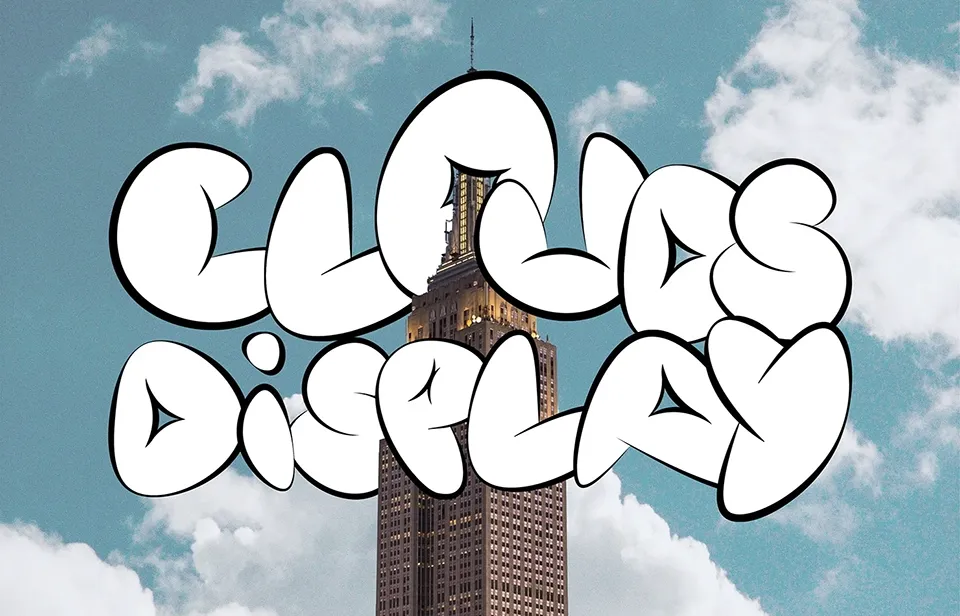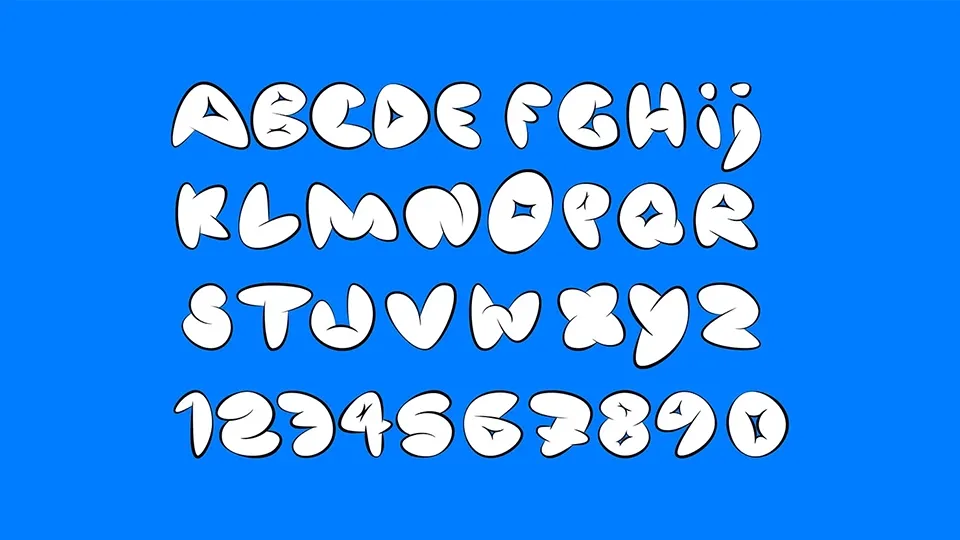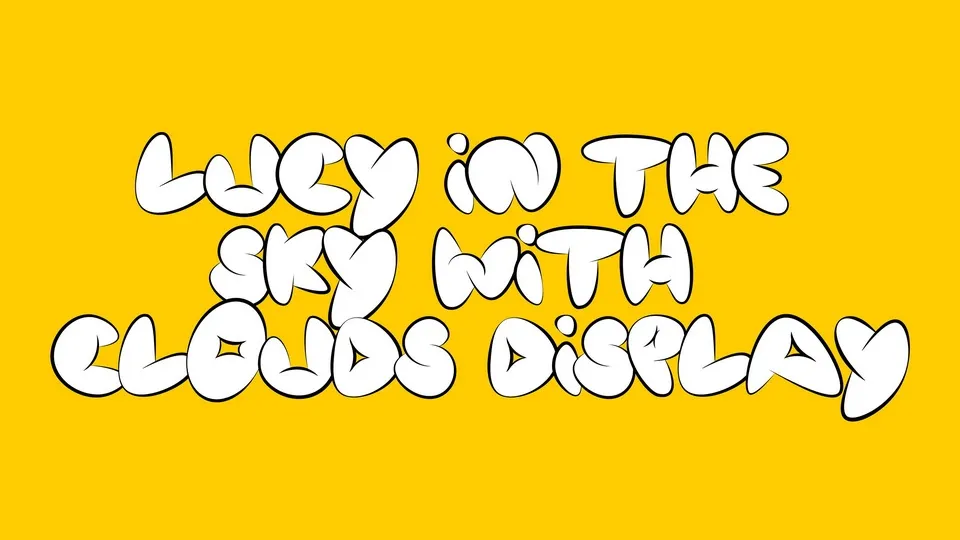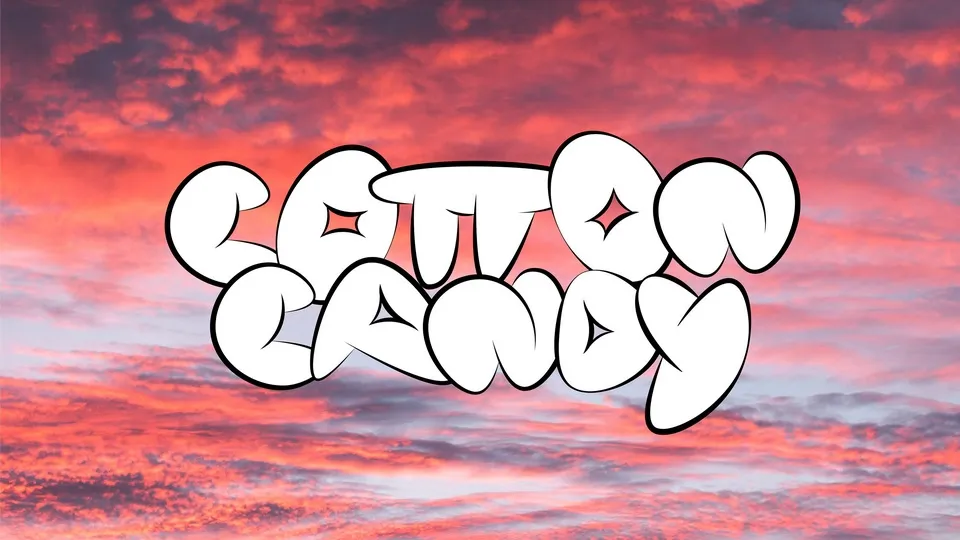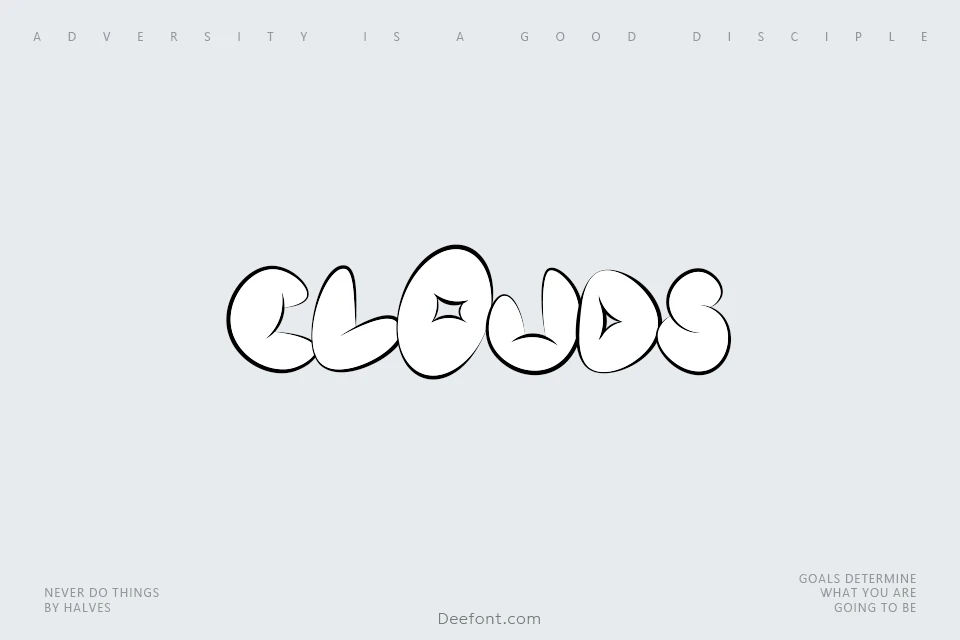
Clouds Display Font
Clouds Display Font is a cute and groovy typeface that brings a sense of playfulness and authenticity to your designs. Perfect for blog posts, logos, branding, ads, invitations, greeting cards, planners, photo albums, decorations, and more, Clouds Display Font will help you enjoy and have fun with your creative projects.